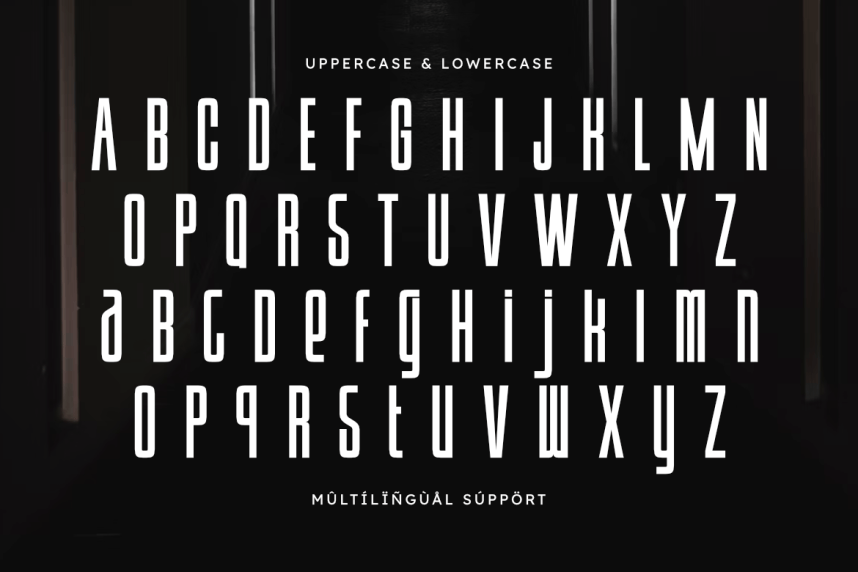
Overhead Font is a modern condensed sans font designed with a tall and sleek structure, perfect for creating bold and impactful designs. Its strong geometric form gives a sense of confidence and professionalism, ideal for headlines, posters, sports designs, branding, and editorial layouts. With clean edges and consistent rhythm, Overhead brings clarity and modern style to every project you create.